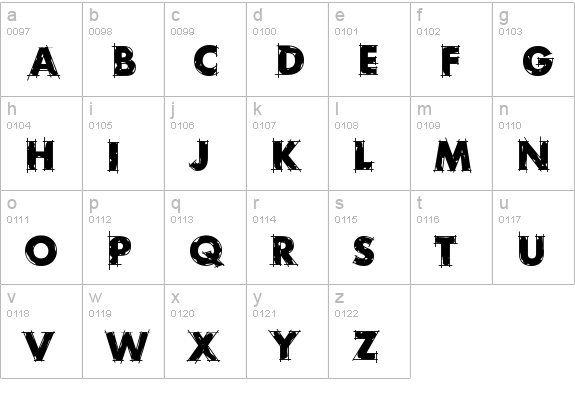
Rough Draft Font Details
Introducing Rough Draft font, a versatile and edgy typeface that adds a raw and unfinished aesthetic to your designs. With its rugged edges and bold appearance, Rough Draft exudes a sense of creativity and individuality. Whether you're working on a poster, logo, or website, this font is sure to make a statement. The best part? Rough Draft is available for free download at FontsMarket.com. This means you can easily access this unique font and incorporate it into your projects without any cost. Don't miss out on the opportunity to enhance your designs with the distinctive charm of Rough Draft font. Download it now and let your creativity shine!